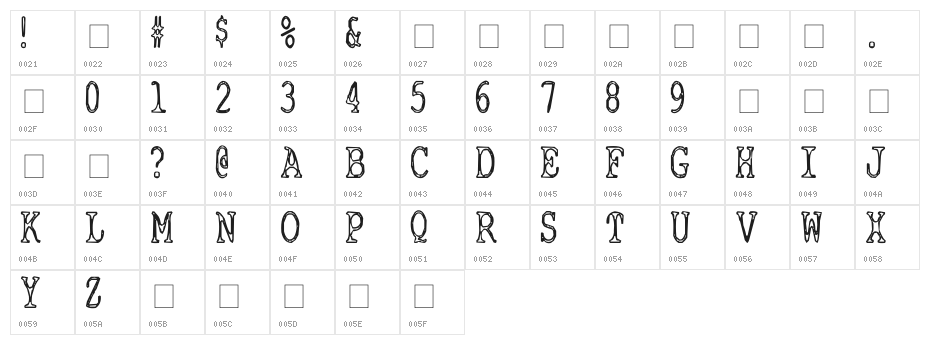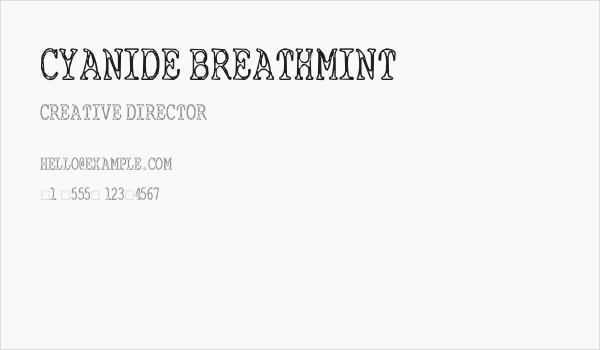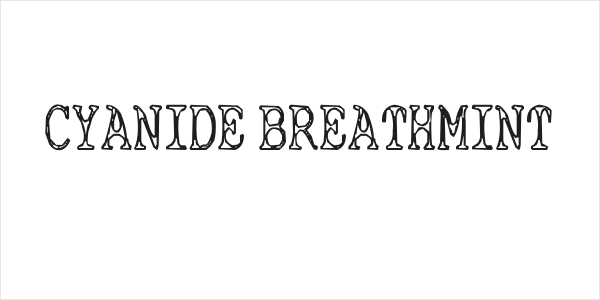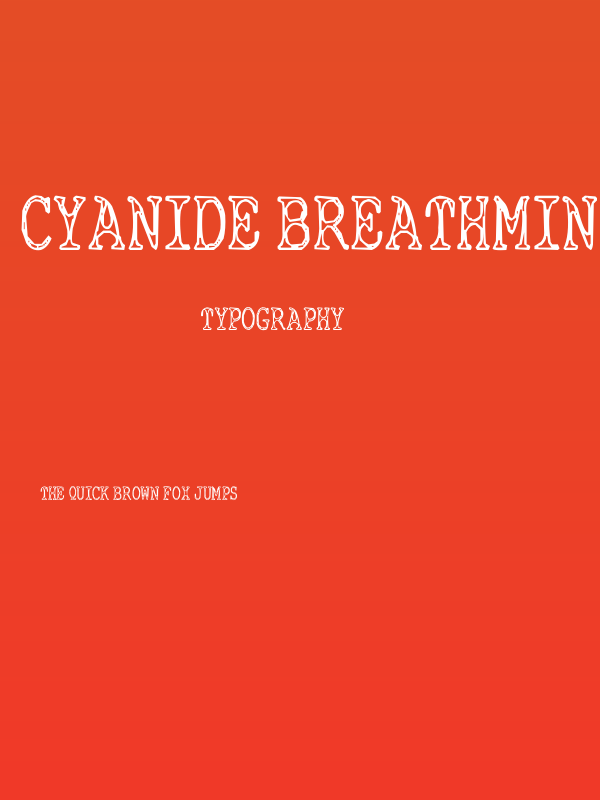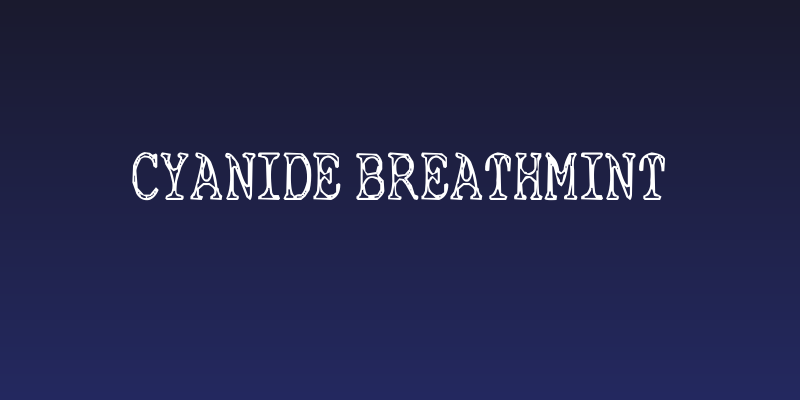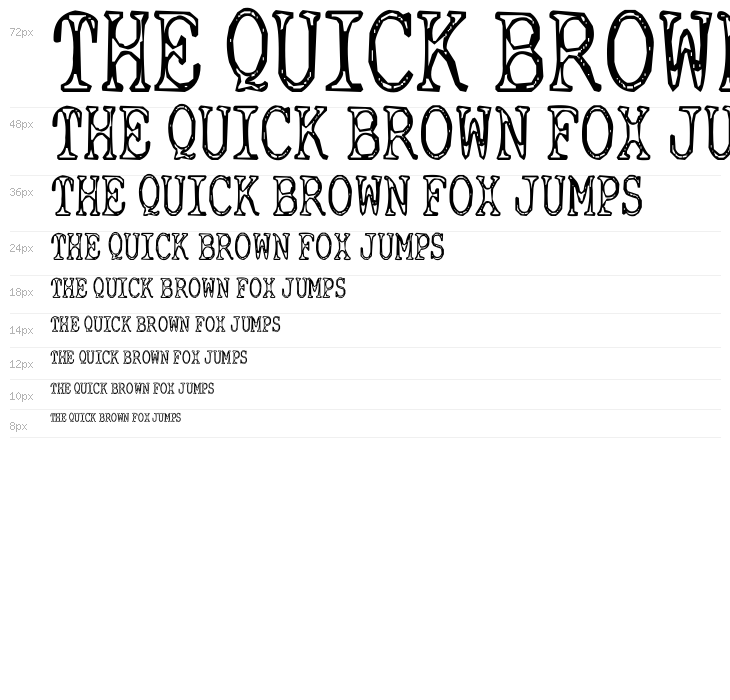
Cyanide Breathmint Font
Cyanide Breathmint Description
This font features a bold and decorative style with a unique, hand-drawn appearance. The characters are outlined with a slightly irregular, sketch-like quality, giving them a playful and artistic feel. The uppercase and lowercase letters maintain a consistent design, with the uppercase being slightly larger and more pronounced. The numbers and special characters follow the same aesthetic, ensuring a cohesive look across all glyphs. The font's distinctive style makes it stand out, with each character having a slightly rough texture that adds to its charm.
| Overall Style | Artistic, Playful |
| Proposed Projects | Ideal for creative projects such as posters, album covers, and artistic branding. |